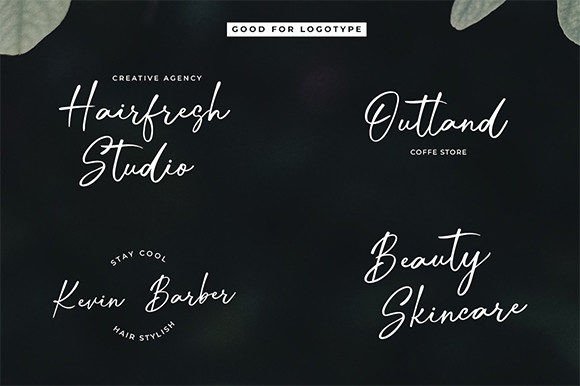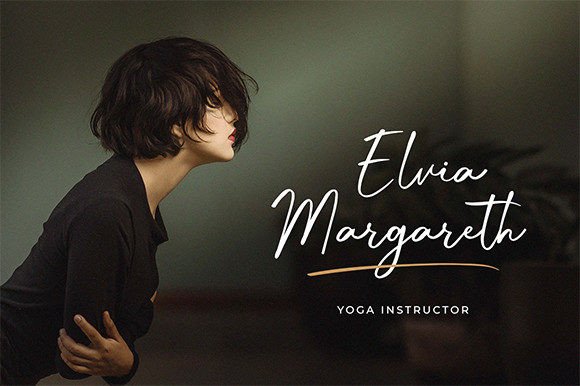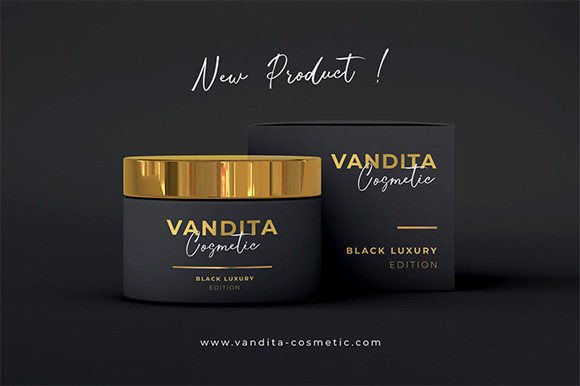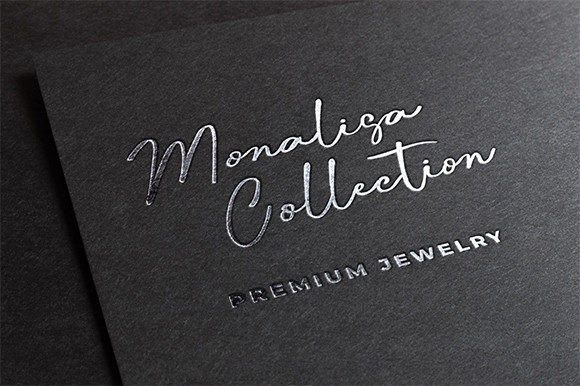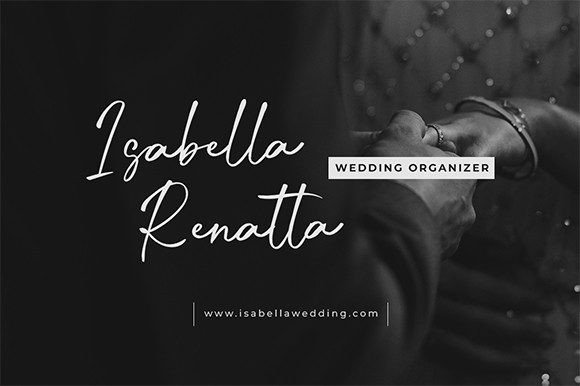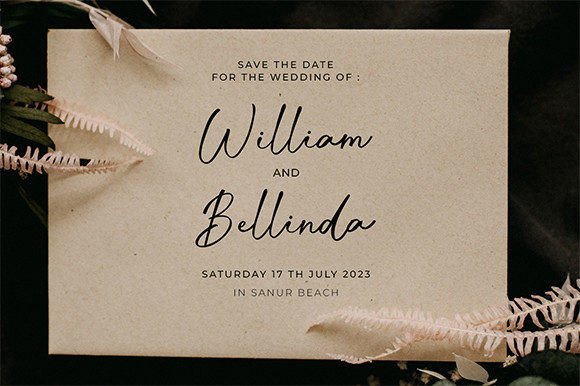
Introduction to Moonlight Paradise Font
Moonlight Paradise is an enchanting handwritten font.
This versatile script font has a wide spectrum of applications, ranging from greeting cards to headlines, and is guaranteed to add a romantic feel to your next project It will add a joyful and modern touch to each of your projects.
Key Features of Moonlight Paradise Font